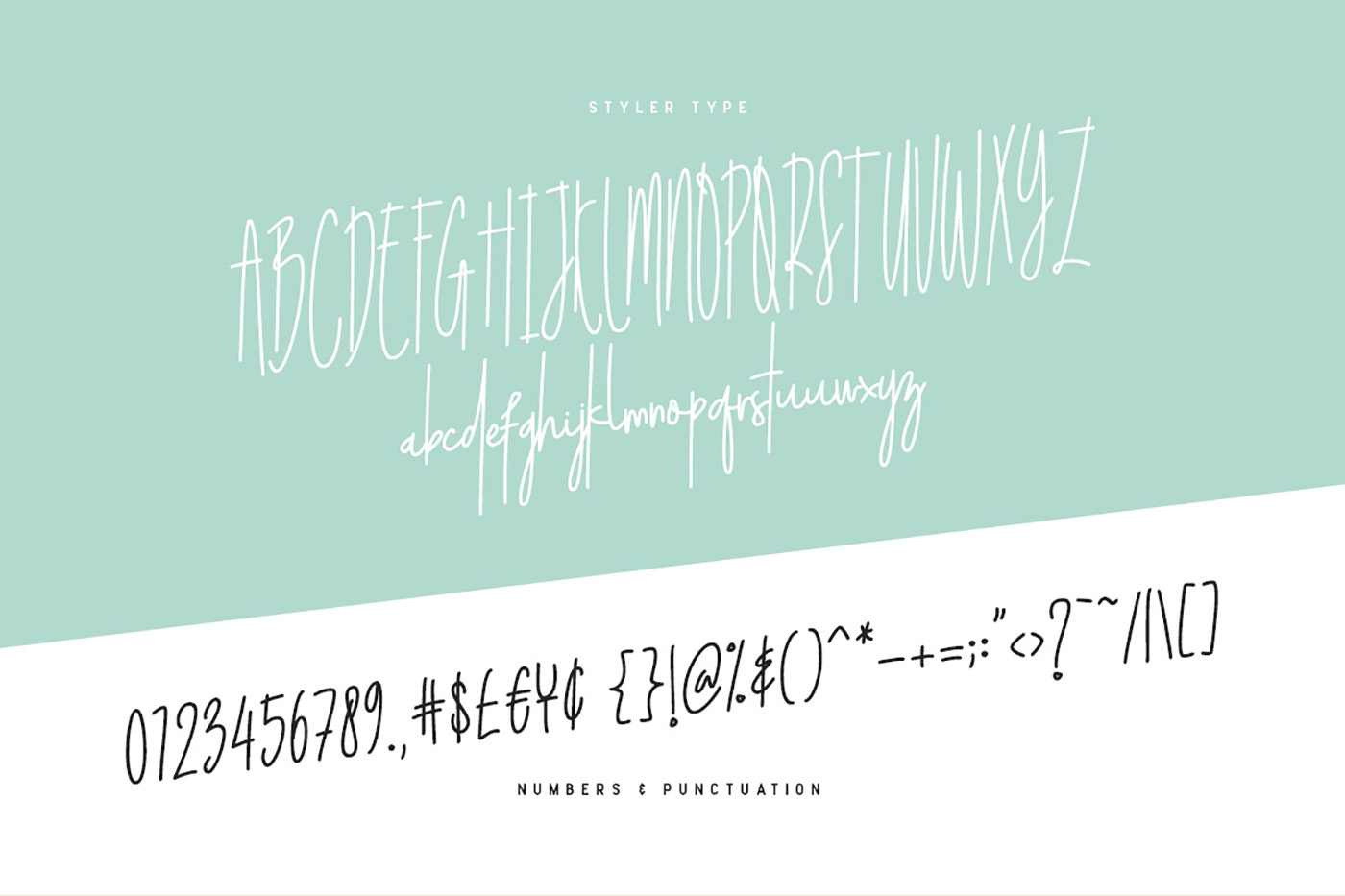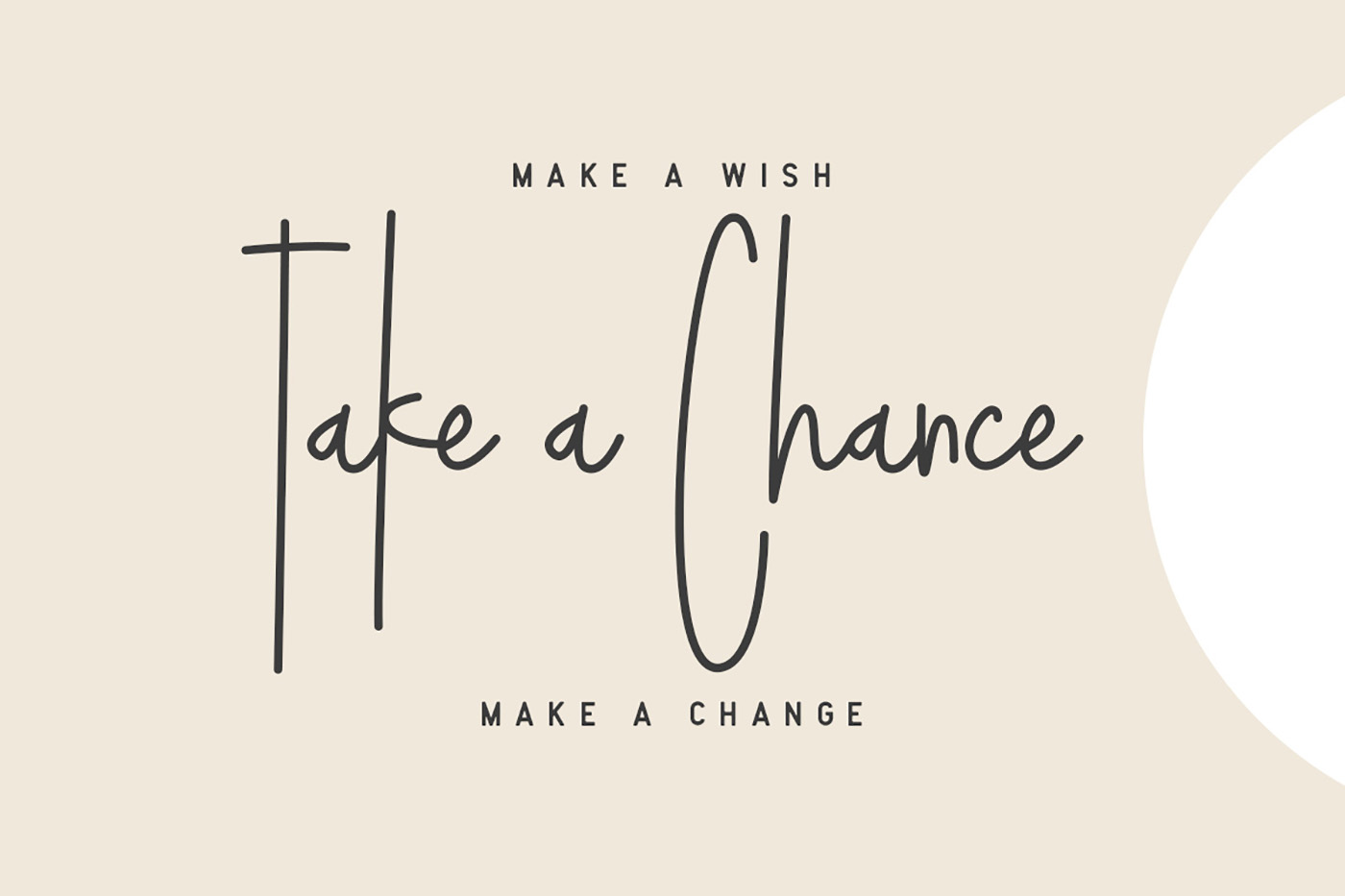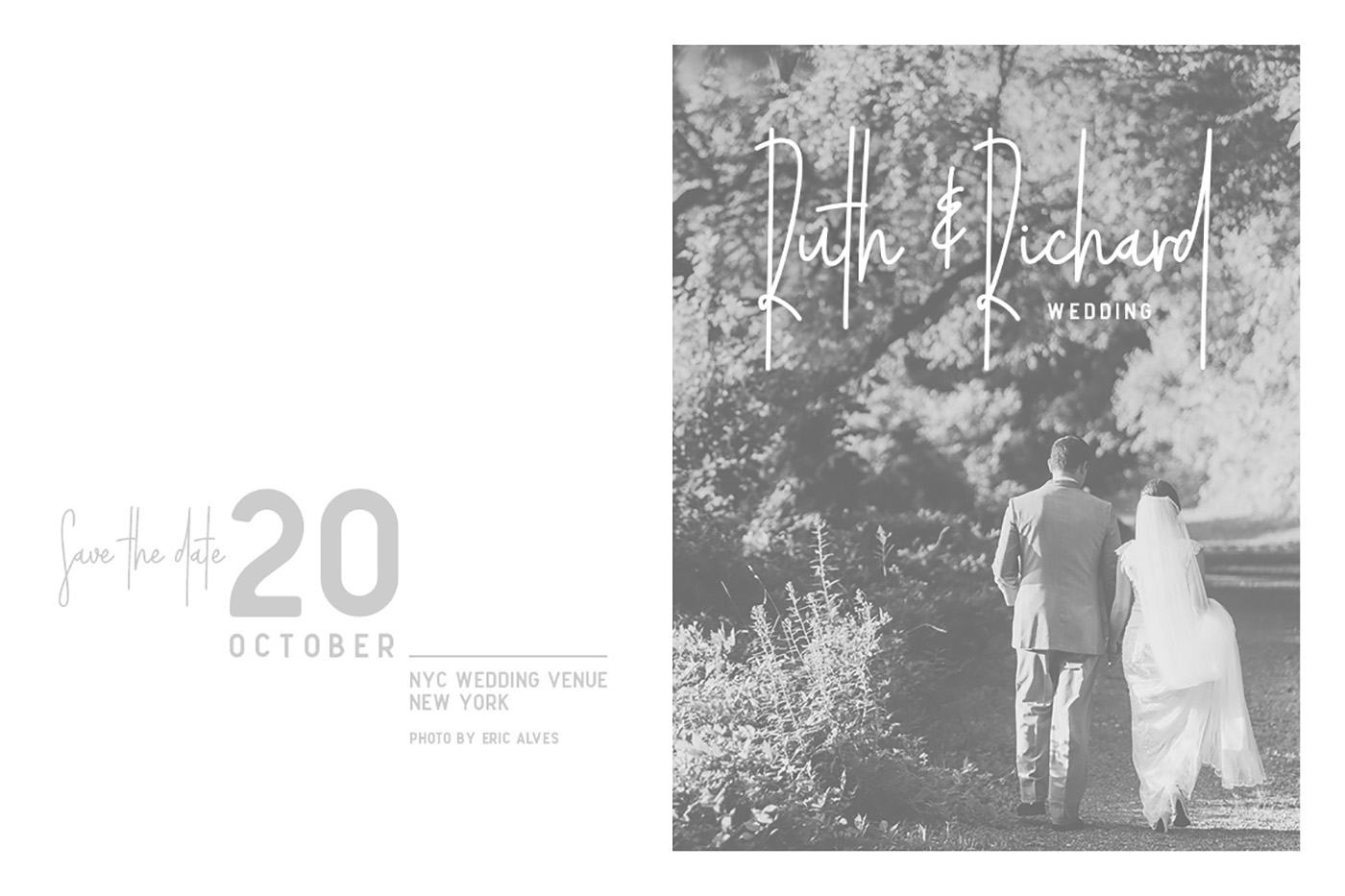
Introduction to Lovely Pudding Font
Lovely Pudding is a charming and quaint font, suitable for any project or design that needs added warmth and coziness.
With exaggerated height and a casual stroke, Lovely Pudding is a font you’ll use time and time again Add Lovely Pudding, a beautiful script, to your collection today.
Key Features of Lovely Pudding Font
Why Choose Lovely Pudding Font?